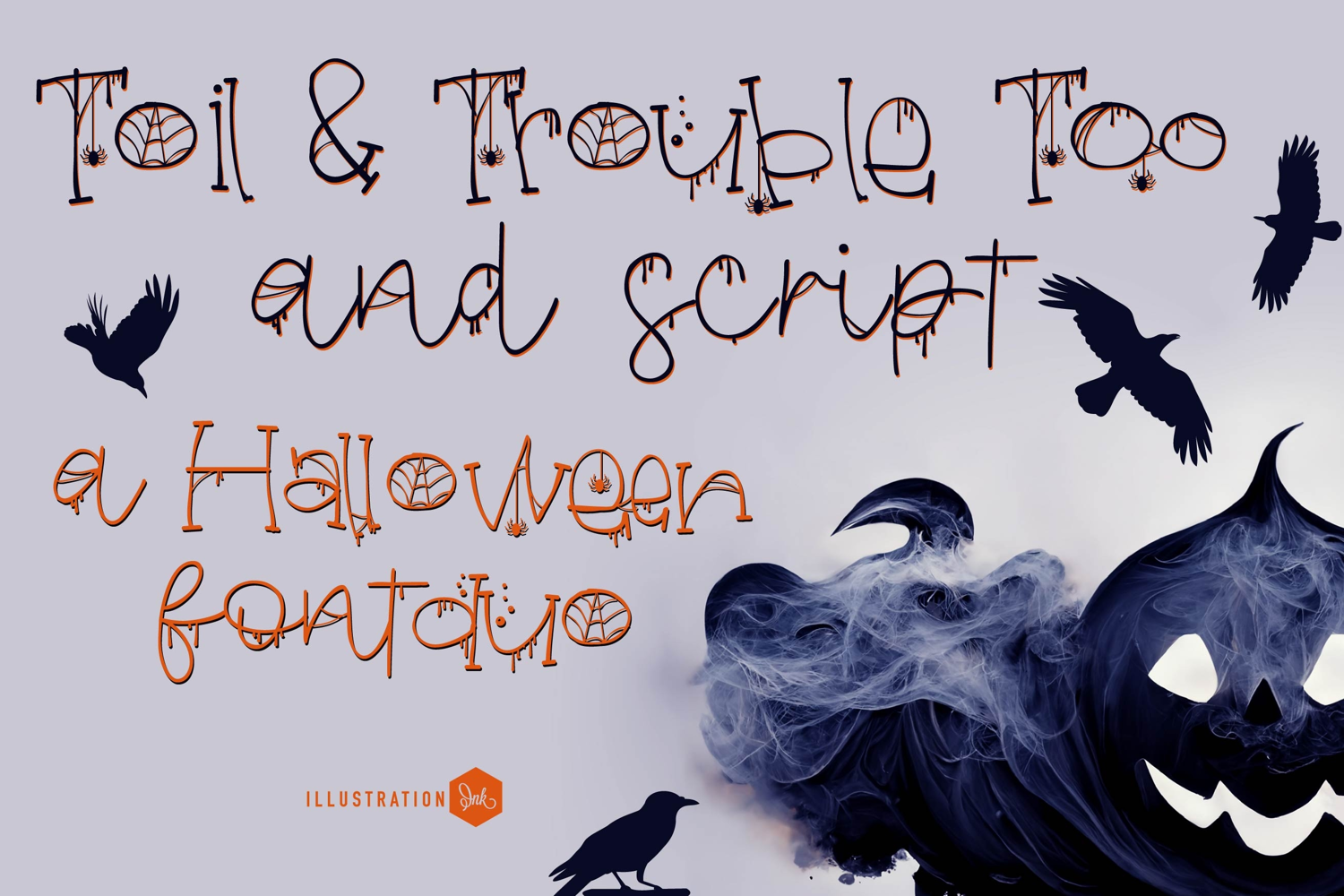
Toil and Trouble Too Font Duo
This hand-crafted font duo combines a webby, youthful, spooky print with a perfectly coordinated script. With all family members combined of the two fonts, you get 12 fonts all together!
Hand-crafted fonts can be either formal or informal, and they can be used for a variety of purposes. Some of the characteristics of handwritten fonts include: The letters are not perfectly uniform in size or shape. There may be slight variations in the spacing between letters and words. The font may have a "wiggly" or "squiggly" appearance. The font may be difficult to read at small sizes. Handwritten fonts can be a great way to add a casual touch to your designs. They can also be used to create a sense of nostalgia or whimsy. However, it is important to choose a handwritten font that is appropriate for the project you are working on. A formal handwritten font may not be appropriate for a casual invitation, while an informal handwritten font may not be appropriate for a corporate document.
• The letters are not perfectly uniform in size or shape.
• There may be slight variations in the spacing between letters and words.
• The font may have a "wiggly" or "squiggly" appearance.
• The font may be difficult to read at small sizes.